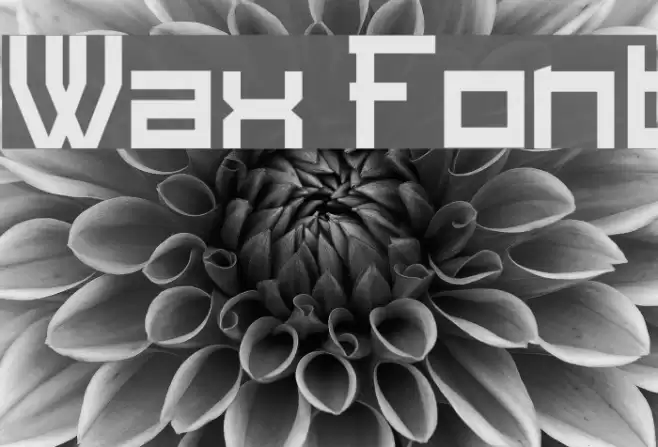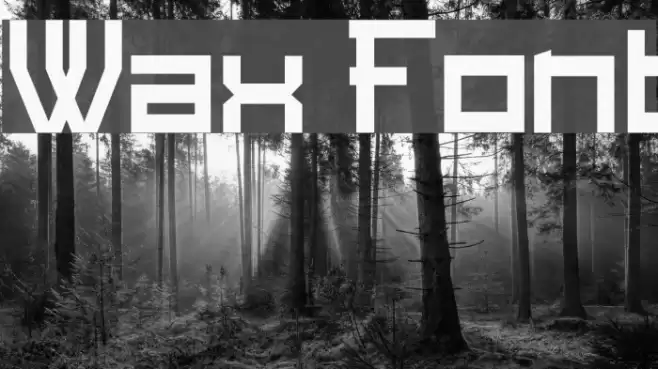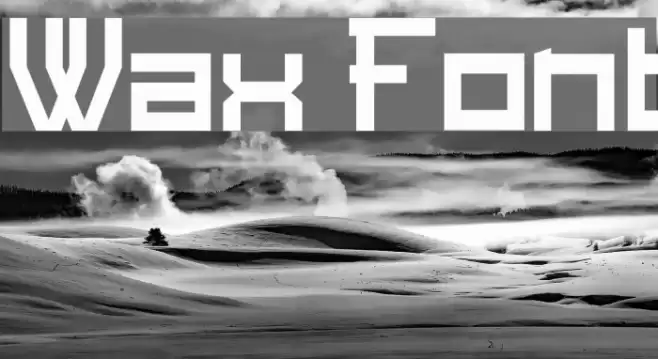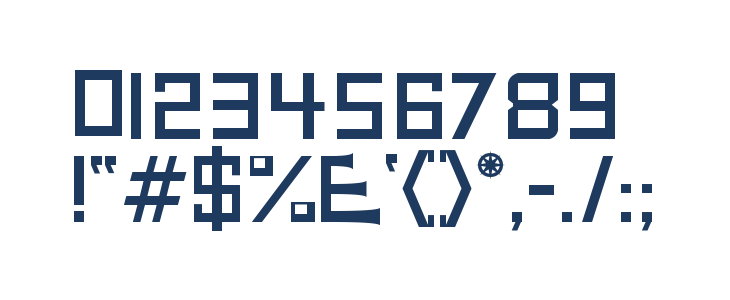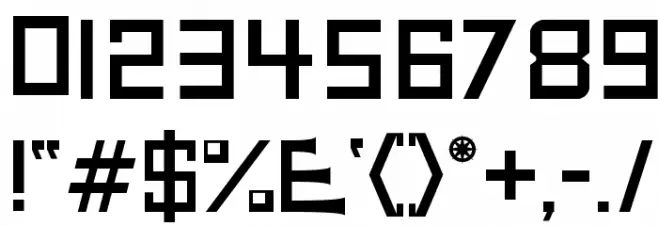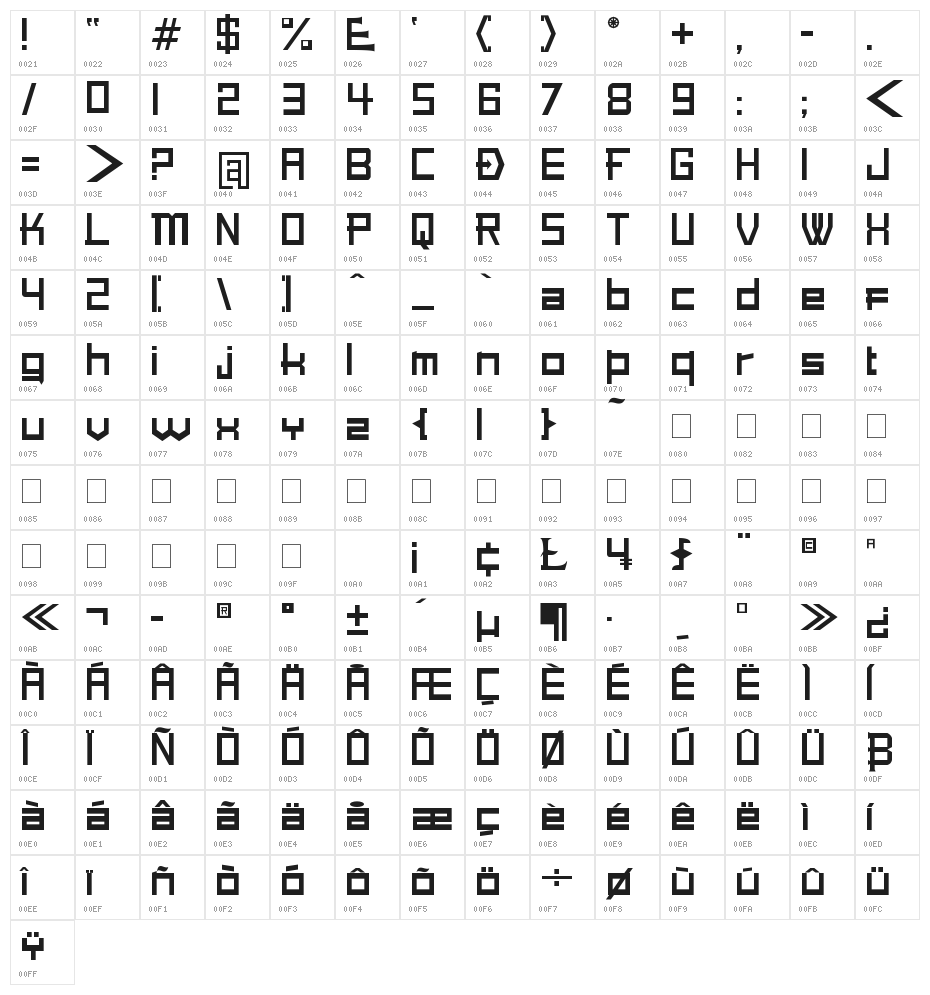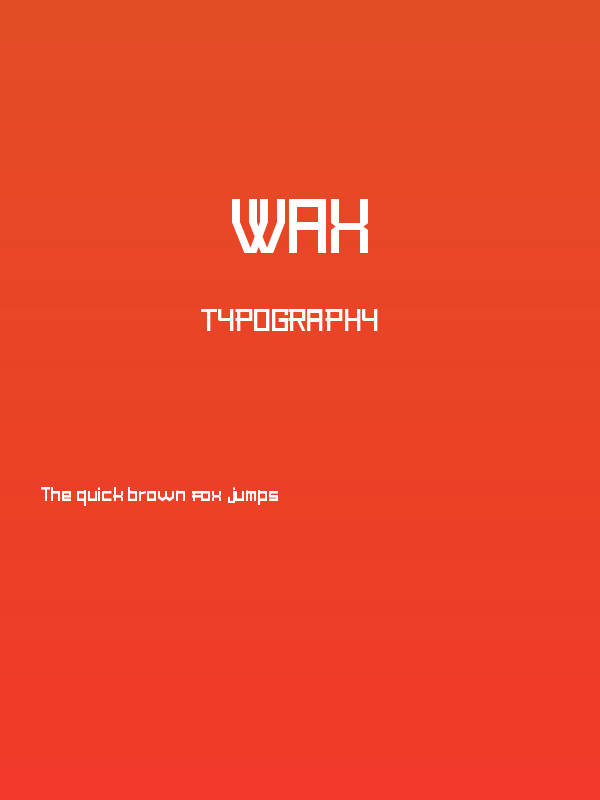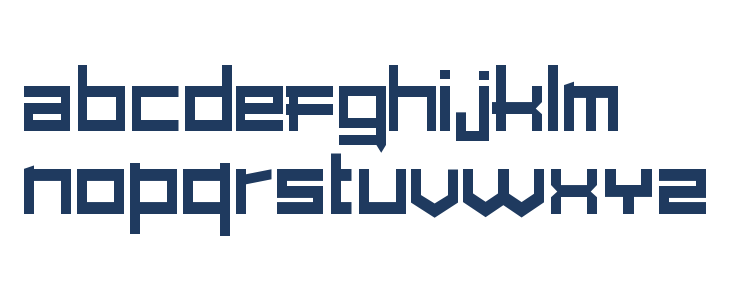
Wax Font
Wax Description
This font features a bold, geometric design with sharp angles and a futuristic aesthetic. The characters are constructed with straight lines and angular cuts, giving it a distinct, modern appearance. The uppercase and lowercase letters maintain a consistent style, with unique elements such as the slashed zero and angular serifs on certain characters. The numerals and special characters follow the same design principles, ensuring a cohesive look across all glyphs. This font's strong visual impact makes it suitable for attention-grabbing designs.
A bold, geometric font with a futuristic and angular design from Uncategorized fonts.
- Proposed Projects: Ideal for sci-fi themed projects, video game titles, technology branding, and modern poster designs.
- Overall Style: Futuristic